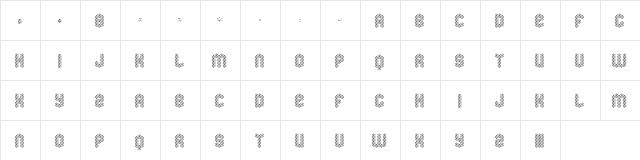
molecular complex 1 Regular
| Designer | Wilson Thomas |
Design Context for molecular complex 1 Typeface
molecular complex 1 is a composed and adaptable typeface that performs quietly and consistently across a wide range of design contexts.